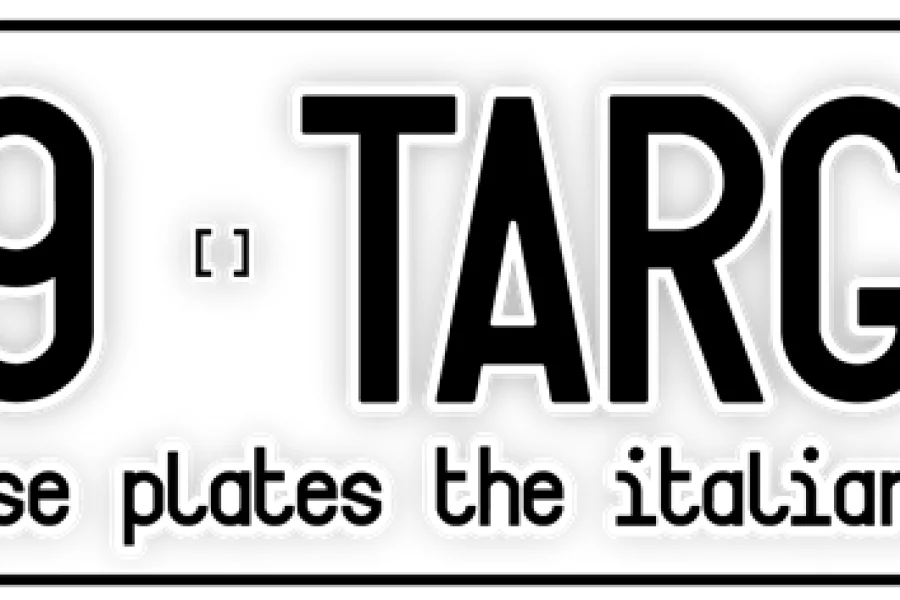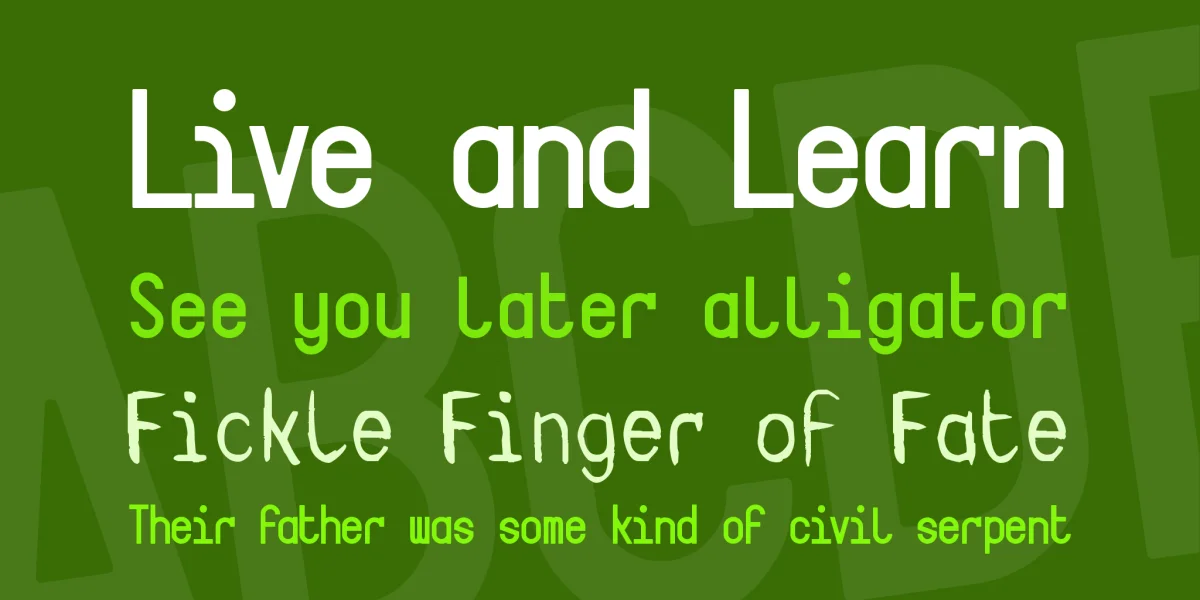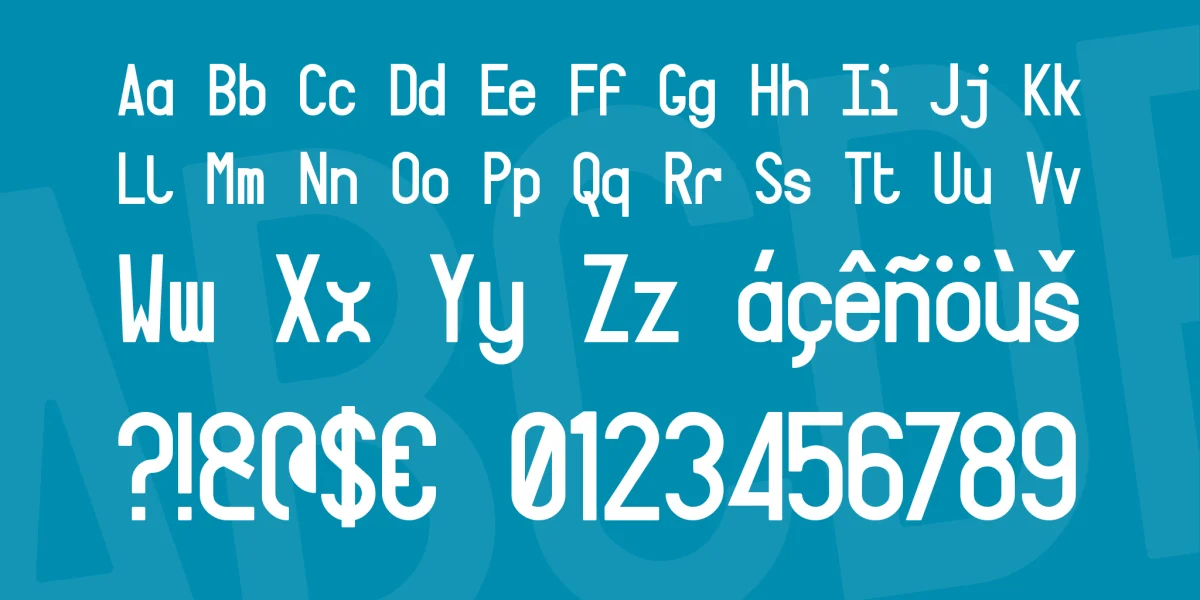
Targa is a highly readable, condensed sans-serif font inspired by Italian vehicle registration plates. It has an handmade version (Targa Hand) that can be used for comic books lettering.